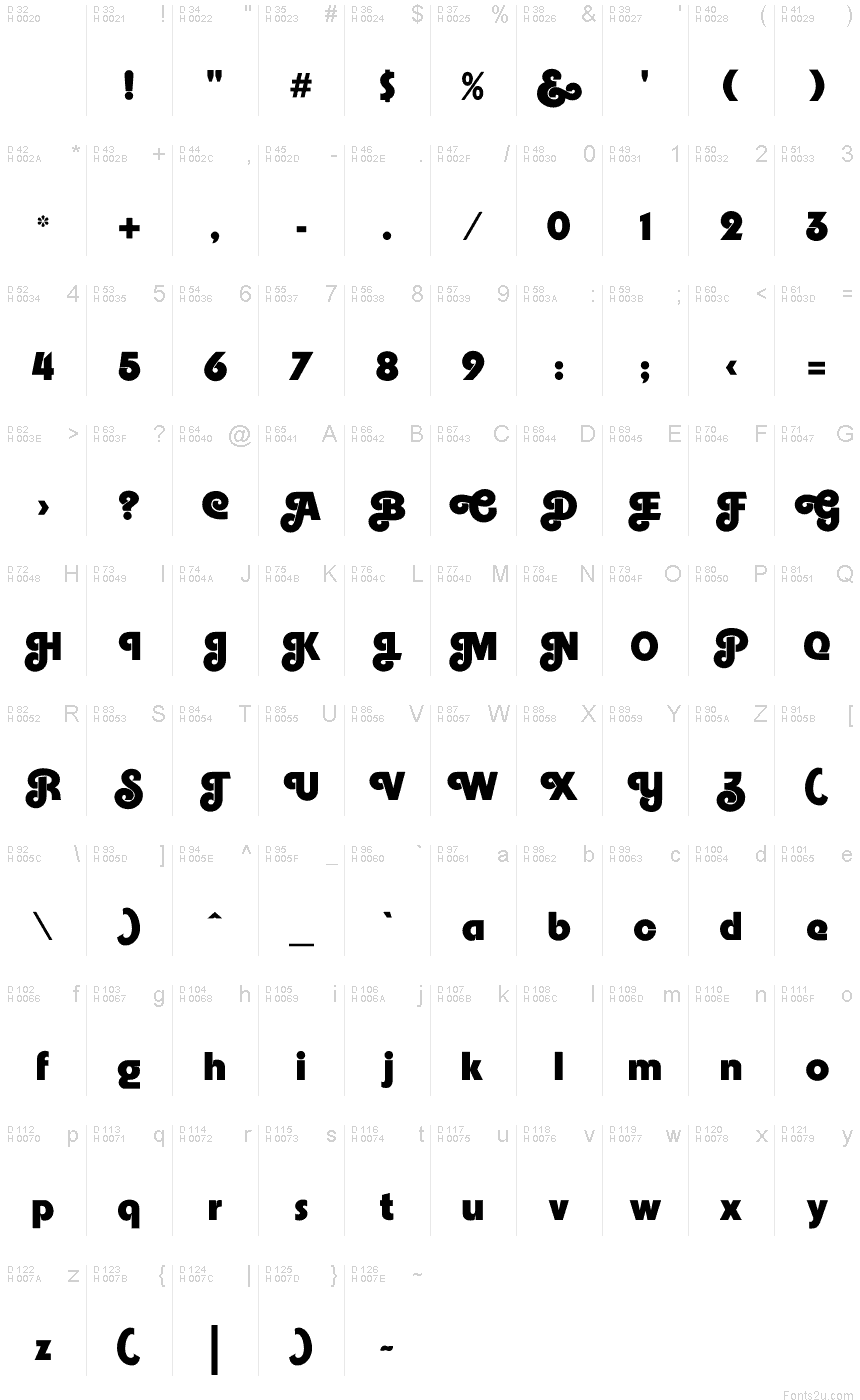
Embrionic85Swash is a free curly decorative display font with broad, dark letters and extravagant looping forms. Rounded swashes curl through the shapes, often ending in neat circular tips that resemble drops of ink. The effect is dense and theatrical.
It can turn a title into an ornamental emblem for music posters or event graphics. Its oversized curves also suit fashion packaging and album artwork, especially when the lettering needs to share the page with fluid illustration. Designers for nightlife, performance, or youth-oriented labels will find its exaggerated silhouette apt.